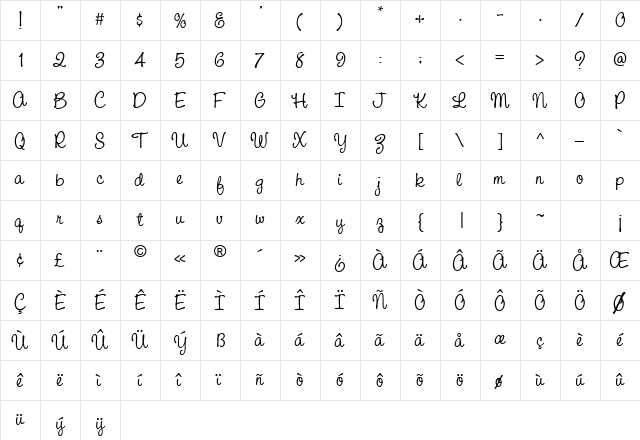
CAC Pinafore Regular
Design Context for CAC Pinafore Typeface
CAC Pinafore takes a measured approach to typography — its balanced proportions and neutral character make it a reliable workhorse for both digital and print work.